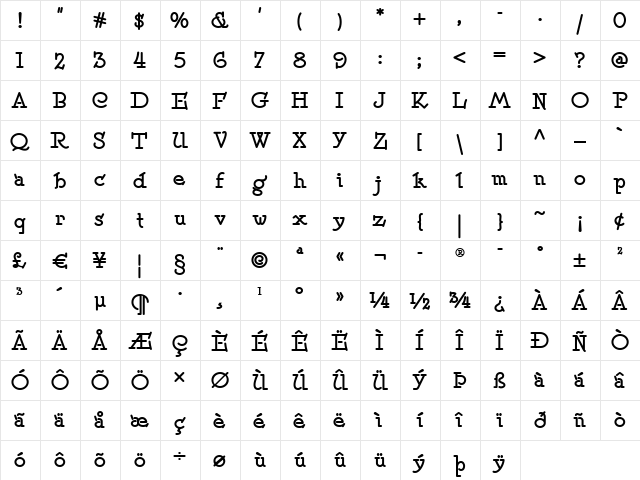
SpeedballNo2NF Bold
| Foundry | Nick's Fonts |
| Designer | Nick Curtis |
Design Context for SpeedballNo2NF Typeface
SpeedballNo2NF takes a measured approach to typography — its balanced proportions and neutral character make it a reliable workhorse for both digital and print work. The heavy weight commands attention and anchors typographic hierarchies.